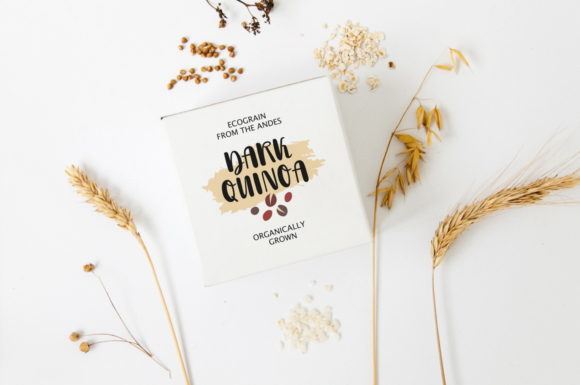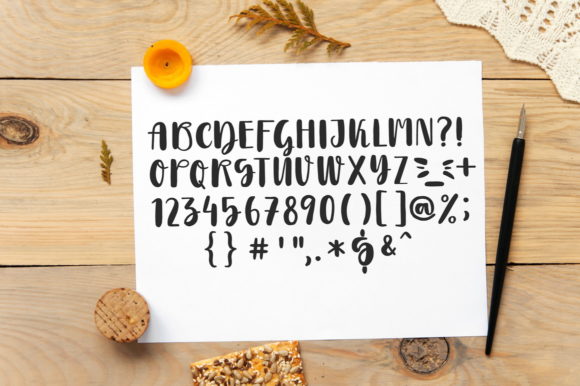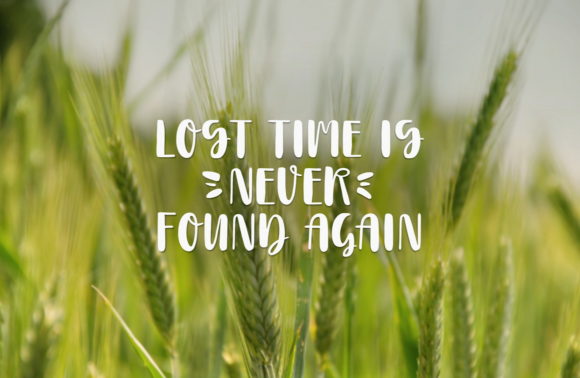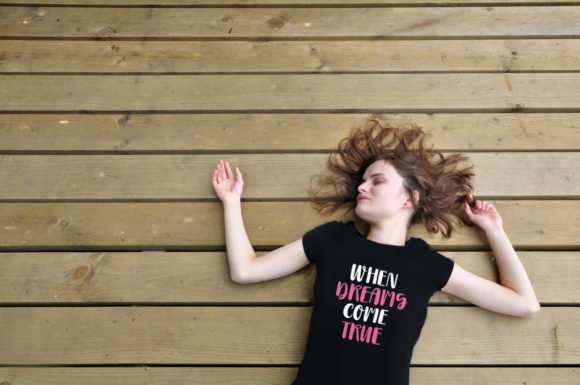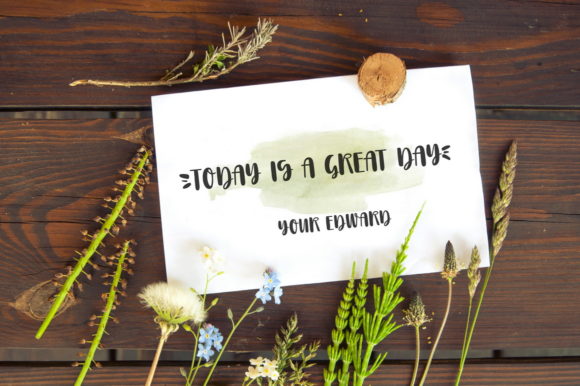
Morning Font
About Morning Font
The Morning is a handwritten uppercase brush pen font.
It’s ideal for labels, photo overlays, lettering posters, branding posters, invitations, and much more!